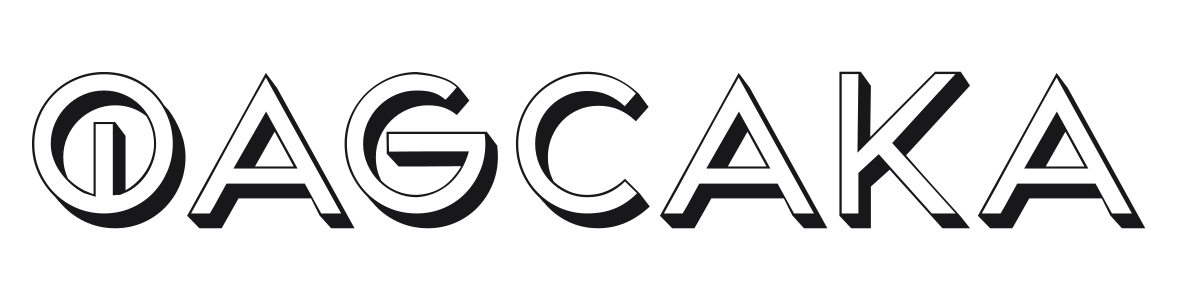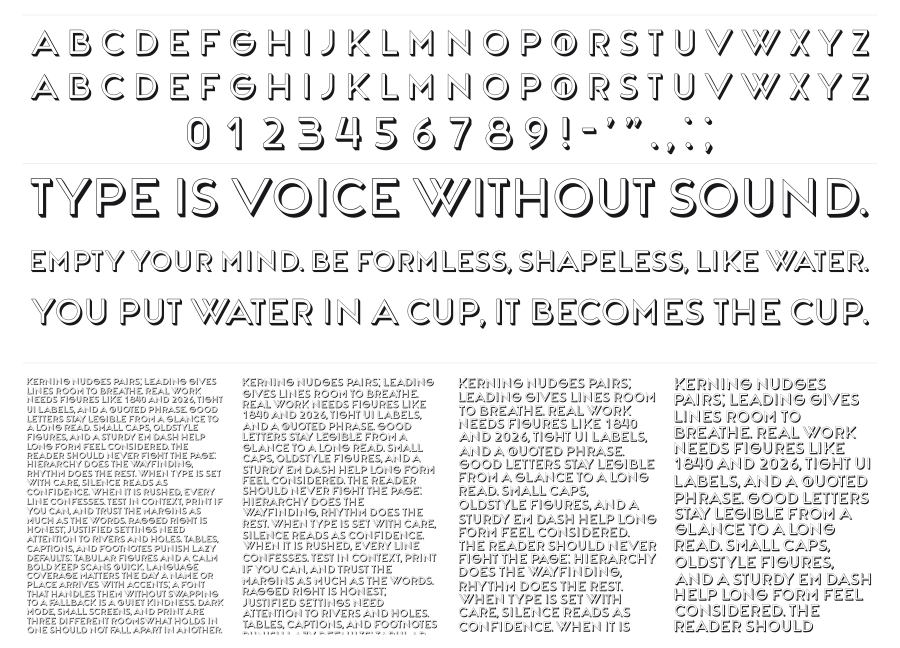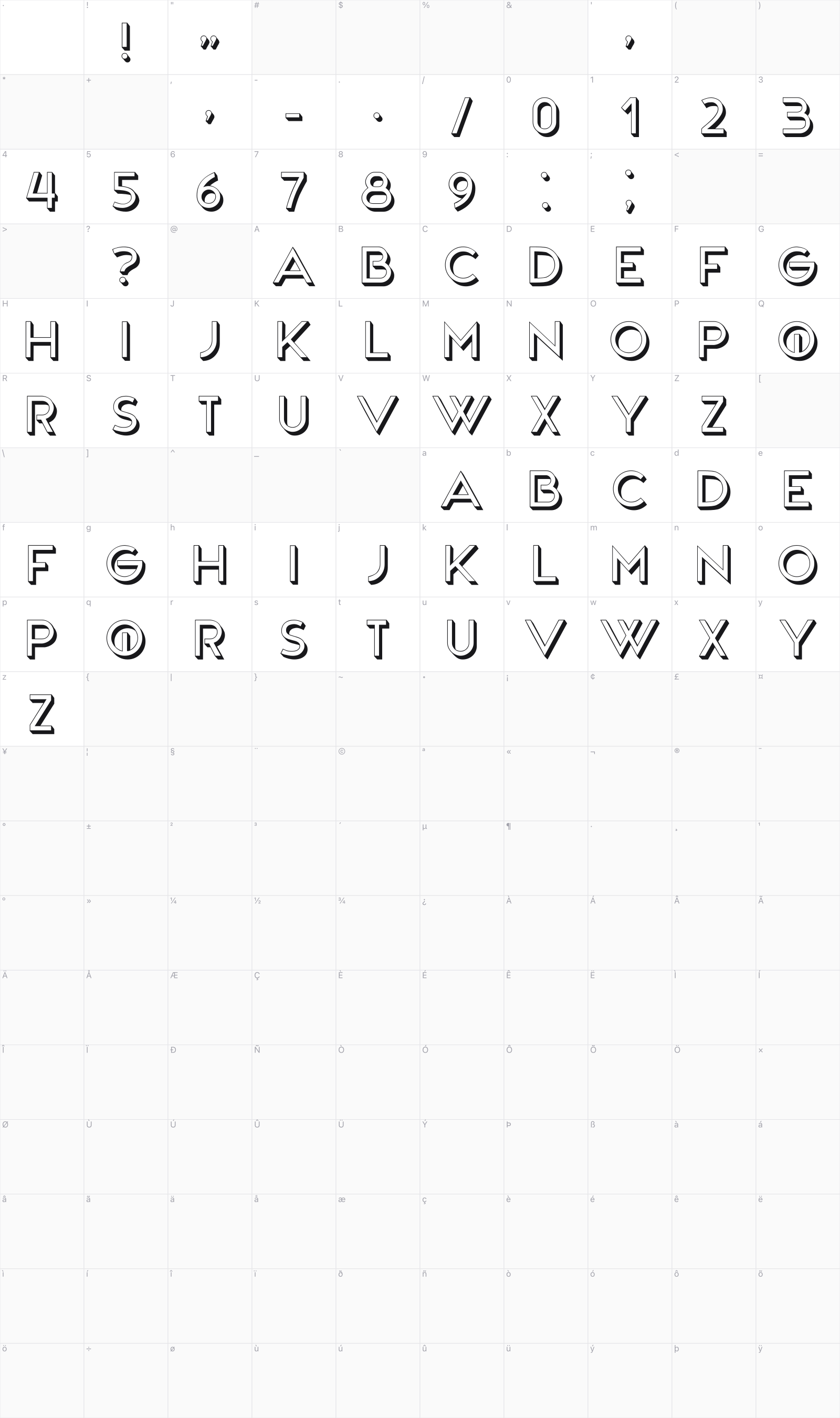
Qagcaka
Qagcaka is a wide geometric display font built around a bold inline-and-shadow effect that gives every character a vintage three-dimensional presence. The layered treatment — white inline over a receding parallel-line shadow — pulls from art deco poster and signage traditions. It reads best large, where the depth effect has room to breathe.